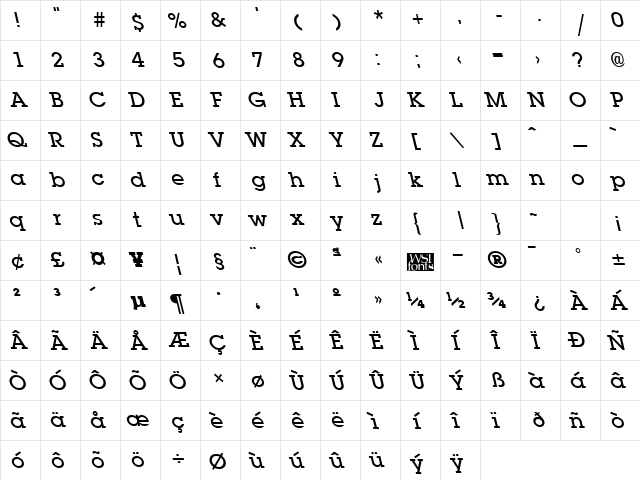
LaplandLeftyDemibold Regular
Design Context for LaplandLeftyDemibold Typeface
LaplandLeftyDemibold takes a measured approach to typography — its balanced proportions and neutral character make it a reliable workhorse for both digital and print work. Its bold stroke weight gives it real presence on the page.